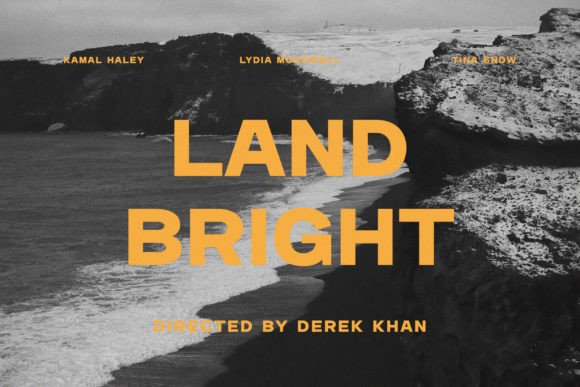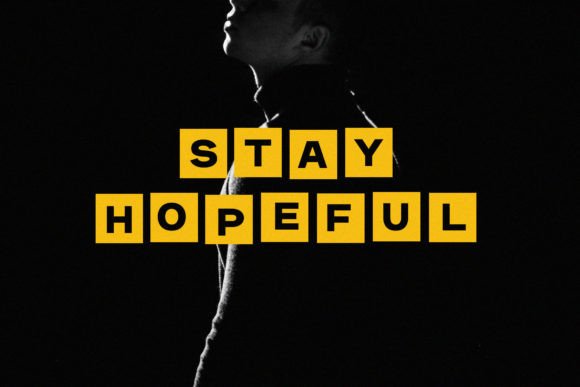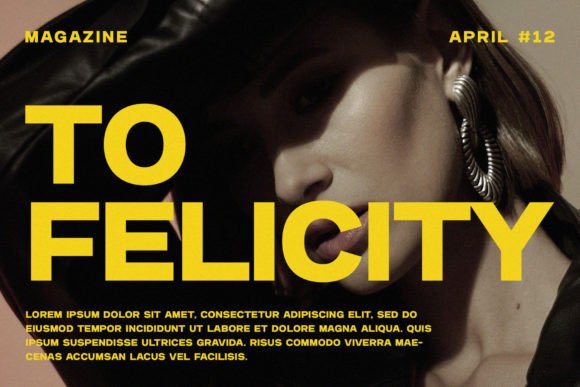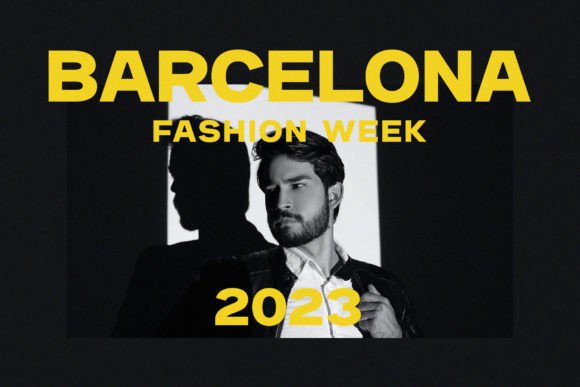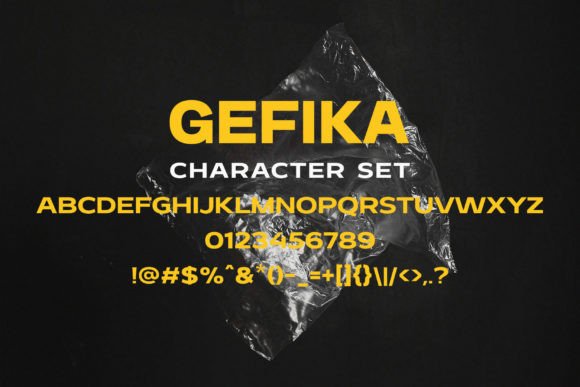
Introducing Gefika Font: The Bold and Modern Sans-Serif for Impactful Designs
In the world of typography, fonts play a crucial role in conveying the message and tone of a design. For designers and crafters looking for a bold and modern aesthetic, Gefika Font is an excellent choice. This sans-serif font is designed to command attention with its thick and heavy letterforms, making it perfect for headlines, titles, and branding projects that require a strong and impactful appearance.
Key Features of Gefika Font
- Bold and Heavy Letterforms: Gefika Font boasts thick and heavy letterforms that grab attention and make a lasting impression. Its bold design ensures that your text stands out, whether it’s used for headlines, titles, or branding projects.
- Uniform Strokes: One of the distinctive features of Gefika Font is its uniform strokes. This design element gives the font a sense of consistency and harmony, making it easy to read and understand.
- Simple Design: Despite its bold appearance, Gefika Font has a simple design that ensures clarity and legibility. This makes it an excellent choice for designs that require a strong and modern aesthetic without compromising on readability.
Use Cases for Gefika Font
Gefika Font is a versatile typeface that can be used in various design projects, including:
- Headlines and Titles: Gefika Font is perfect for creating attention-grabbing headlines and titles that set the tone for your content.
- Branding Projects: The font’s strong and modern aesthetic makes it an excellent choice for branding projects, including logos, business cards, and letterheads.
- Advertising and Marketing Materials: Gefika Font can be used to create impactful advertising and marketing materials, such as billboards, posters, and brochures.
- Digital Media: The font is also suitable for digital media, including website headers, social media graphics, and email newsletters.
Benefits of Using Gefika Font
Using Gefika Font in your design projects offers several benefits, including:
- Improved Readability: Gefika Font’s simple design and uniform strokes ensure that your text is easy to read and understand.
- Enhanced Visual Appeal: The font’s bold and heavy letterforms add a touch of sophistication and elegance to your designs.
- Versatility: Gefika Font can be used in various design projects, from print materials to digital media.
- Time-Saving: With Gefika Font, you can create professional-looking designs quickly and efficiently, saving you time and effort.
Tips for Using Gefika Font Effectively
To get the most out of Gefika Font, follow these tips:
- Use it Sparingly: Gefika Font is a bold and attention-grabbing font, so use it sparingly to avoid overwhelming your design.
- Pair it with Other Fonts: Gefika Font can be paired with other fonts to create a unique and visually appealing design.
- Adjust Font Size and Color: Experiment with different font sizes and colors to create a design that suits your needs.
Gefika Font is a bold and modern sans-serif font that is perfect for designers and crafters looking for a strong and impactful aesthetic. With its thick and heavy letterforms, uniform strokes, and simple design, Gefika Font is an excellent choice for headlines, titles, and branding projects. By using Gefika Font effectively, you can create professional-looking designs that grab attention and make a lasting impression.